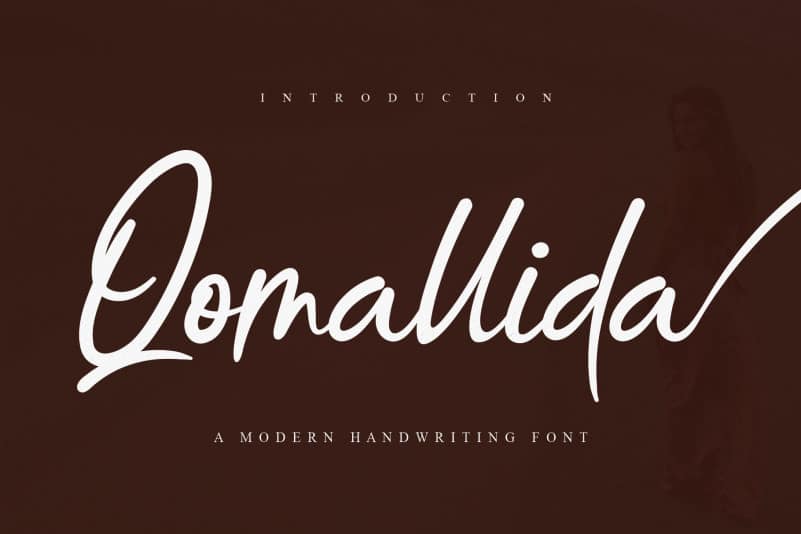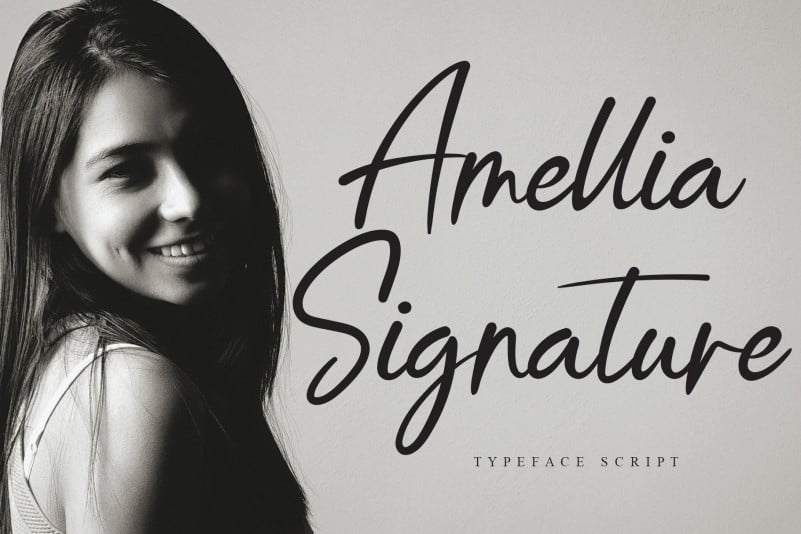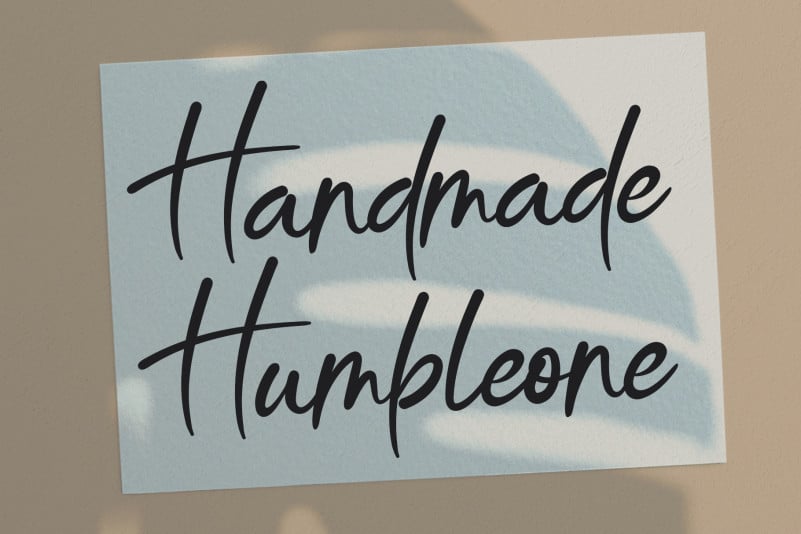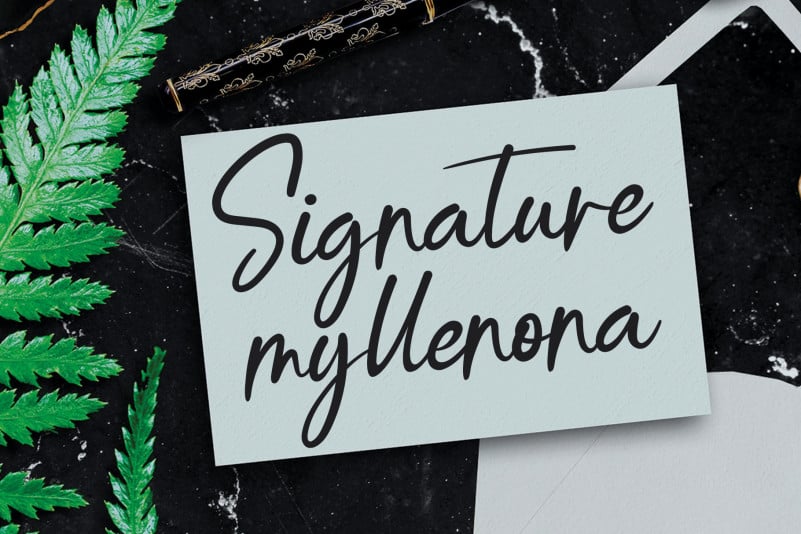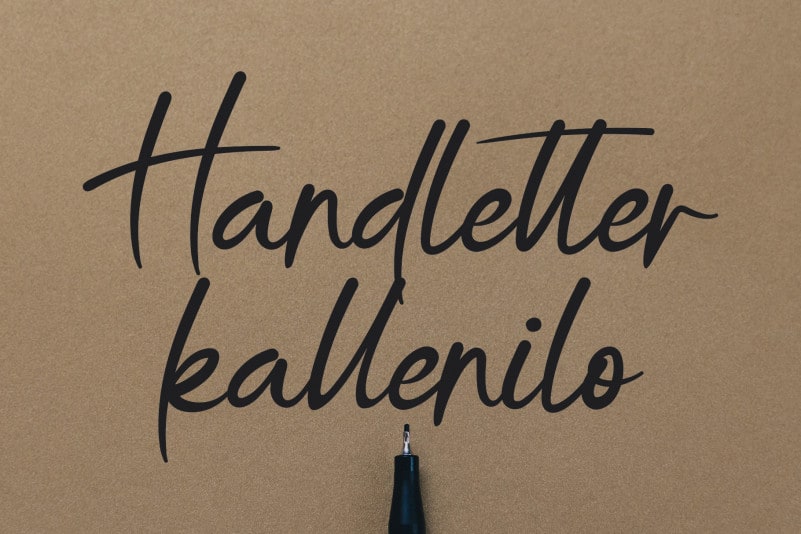
Qomallida Handwritten Font
The newest style letters are perfect for wall displays, wedding invitations, social media post logos,
advertisement, product packaging, product design, label, photography, watermark, invitation, writing tool,
and any project that requires handwritten taste.